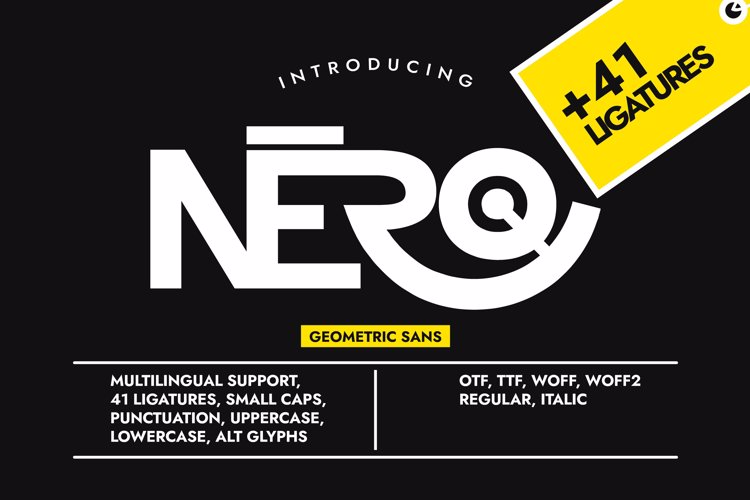
NERO Font
๐จ Font Name: Nero by Minimalist Art Studio
๐จ Font Description: Nero is a geometric sans serif with multilingual supportโperfect for tech branding, editorial impact, and modern packaging.
โ Complete Latin set + multilingual diacritics
โ Alternates, stylistic sets & ligatures
โ Numbers, small caps, and extended punctuation
โ Bonus italics and family styles